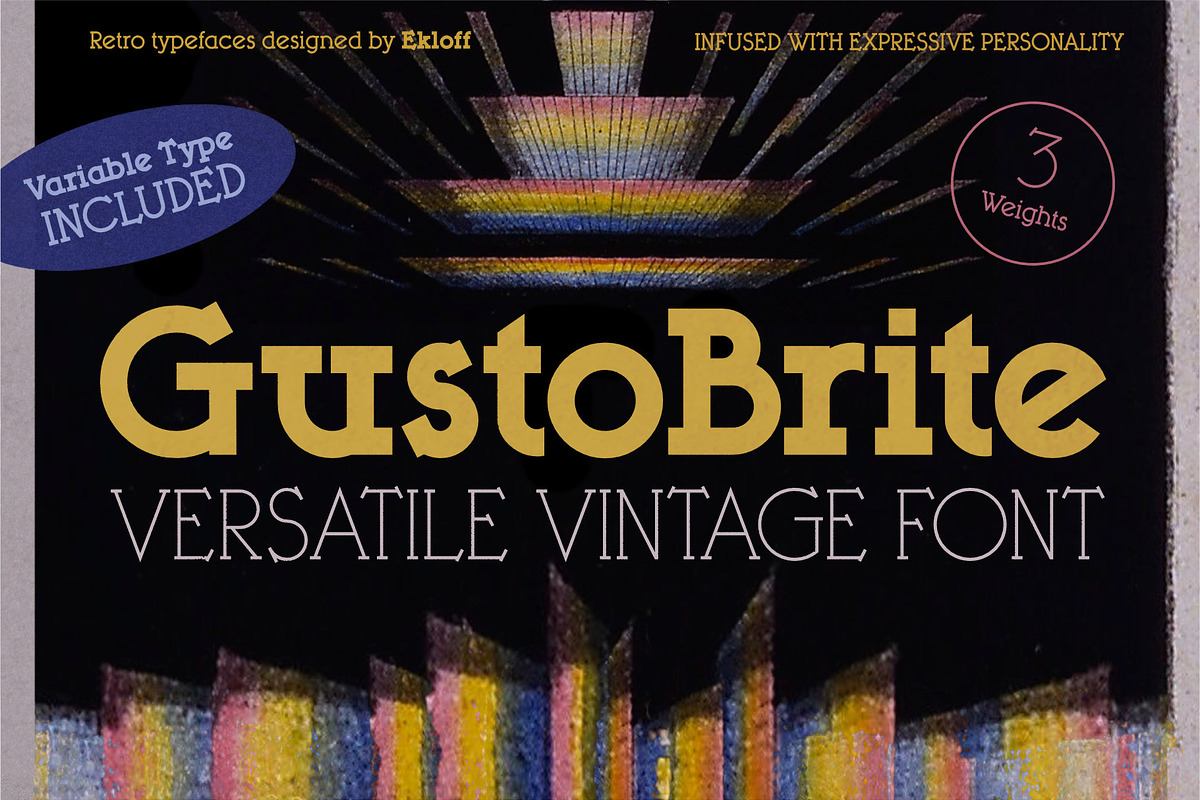
GustoBrite Family: retro slab fonts Free Download
GustoBrite Family: Retro Slab Fonts Free Download is a bold and stylish typeface family inspired by classic retro designs with modern versatility. Perfect for branding, posters, packaging, and headlines, this font family offers a strong, clean look with a touch of nostalgia. Please note that you must purchase this font for commercial use, but it is available as a free download for testing purposes. Add timeless appeal and retro flair to your projects with GustoBrite Family: Retro Slab Fonts Free Download, and give your designs a standout, vintage-inspired look.